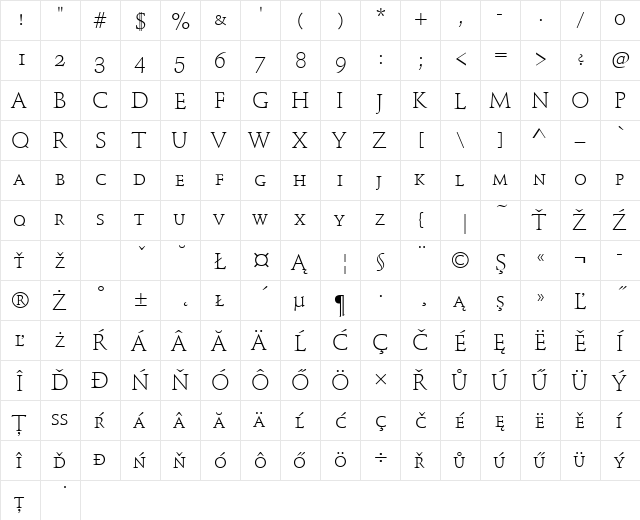
SchneidlerMedSCTEELig Regular
Design Context for SchneidlerMedSCTEELig Typeface
SchneidlerMedSCTEELig offers clean, dependable letterforms without strong stylistic allegiance, making it a practical choice for designers who need flexibility.